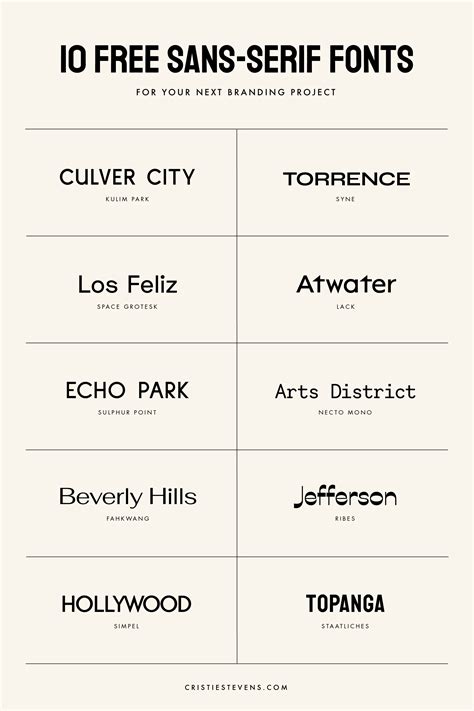
Sans Fonts: The Future Of Typography
Sans Fonts: What Are They?
Sans fonts, sometimes referred to as sans serif fonts, are a type of typeface that has no serifs or decorative strokes. Instead, the characters in these fonts are composed of simple lines and curves. Sans fonts are considered to be some of the most modern and versatile typefaces, and they are widely used in web design, print design, and even logo design. Sans fonts can be used for both body text and headlines, and they come in a wide variety of styles from bold to light.
Sans fonts have become increasingly popular in recent years because of their modern, clean look. They are often used to create a sense of sophistication and minimalism in web design, and they can help to create a contemporary vibe for a website. Sans fonts are also very legible, so they can be used to create a consistent look across a range of devices.
The Benefits of Sans Fonts
Sans fonts are known for their versatility and modern look, but they also provide a variety of other benefits. For example, they are often used in web design because they are lightweight and easy to load, which helps to optimize the user experience. Sans fonts are also very legible, so they can be used to create a consistent look across a range of devices. Additionally, they are often used in print design because they are easy to read and can be printed at a variety of sizes.
Sans fonts are also very versatile, so they can be used for a variety of purposes. They are often used for both body text and headlines, and they come in a wide range of weights from bold to light. Sans fonts can also be used to create a contemporary look for logos and other graphic elements. Additionally, they are often used to create a sense of sophistication and minimalism in web design.
Using Sans Fonts in 2023
Sans fonts are currently some of the most popular typefaces in the world, and they are likely to remain popular in 2023. Nowadays, sans fonts are used in a wide range of applications, from web design to logo design and beyond. As technology continues to evolve, sans fonts will become even more versatile and useful, and they will continue to be used in a variety of contexts. The modern, clean look of sans fonts is likely to remain popular in 2023, and they will continue to be used to create a contemporary look for websites and other graphic elements.
Sans fonts are some of the most modern and versatile typefaces available, and they are widely used in web design, print design, and logo design. They are lightweight and easy to load, which helps to optimize the user experience, and they are also very legible and can be used to create a consistent look across a range of devices. Sans fonts are also very versatile and can be used for a variety of purposes, from body text to headlines. Sans fonts are likely to remain popular in 2023, and they will continue to be used to create a contemporary look for websites and other graphic elements.